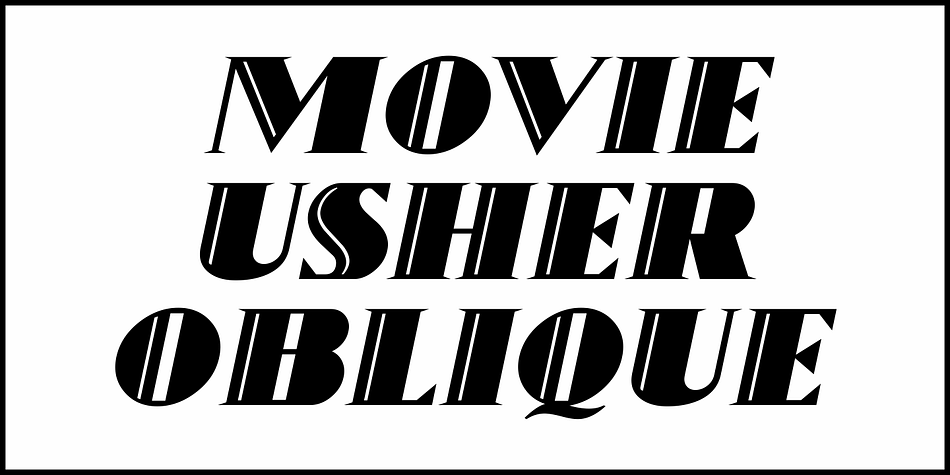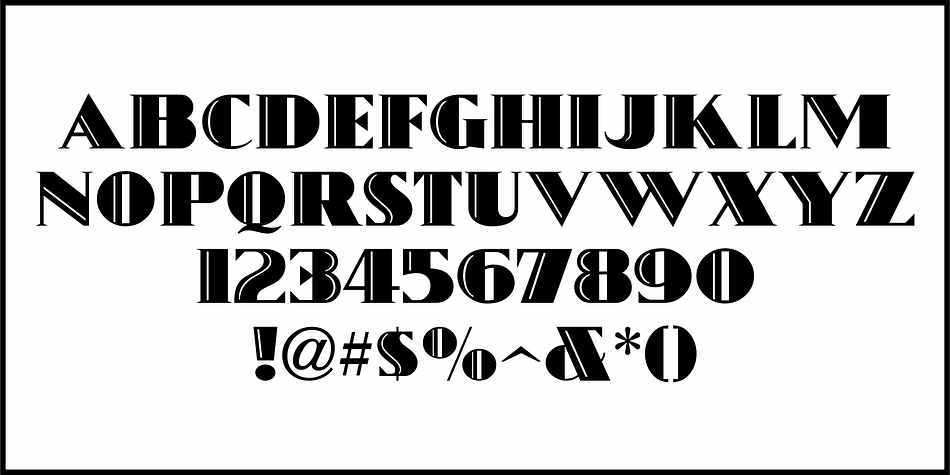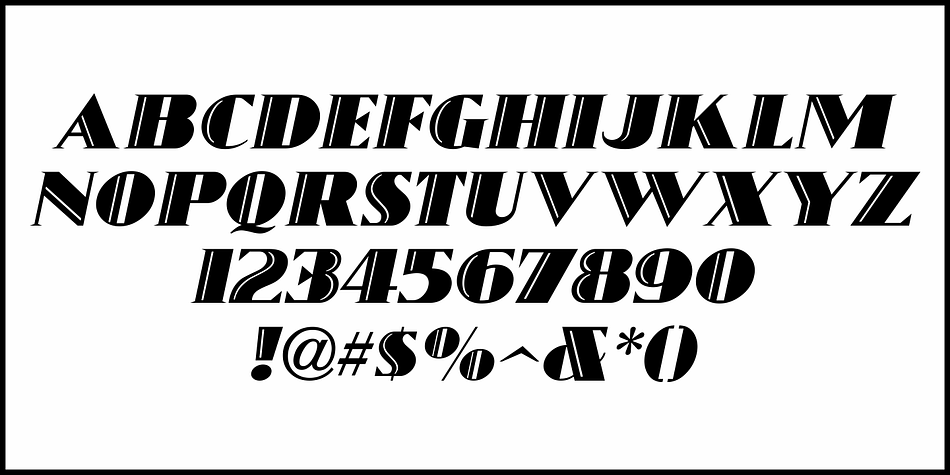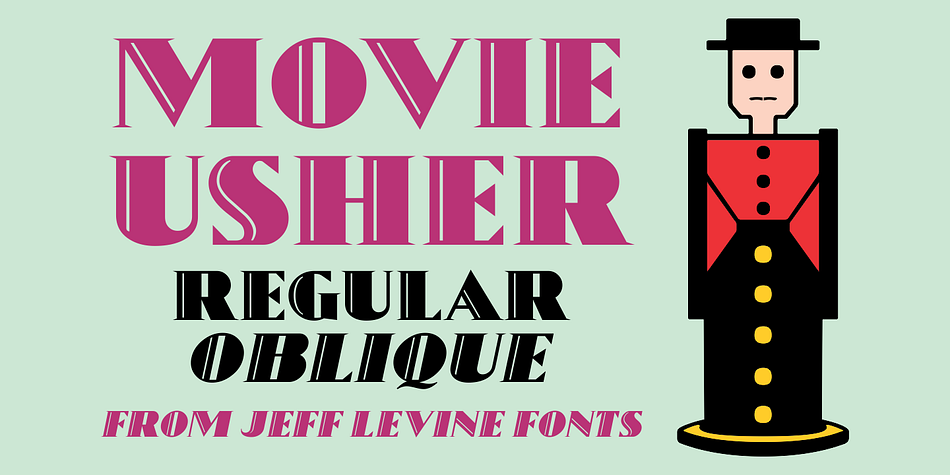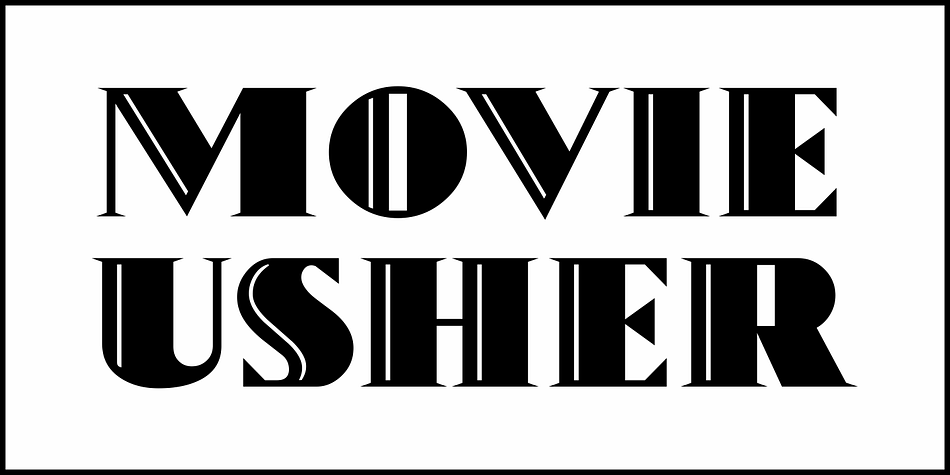
MOVIE USHER JNL
Designed by Jeff Levine, Movie Usher JNL is a display serif font family. This typeface has two styles and was published by Jeff Levine Fonts.
An ad in the July 27, 1928 issue of The Film Daily for FBO Pictures was an encouragement to all theaters to accept the emergence of ‘talking pictures’ and “Don’t be Panicked by Sound”.  The headline text was hand lettered in an extra bold serif type face with engraved [incised] lines.
The lettering has been redrawn as the digital type face Movie Usher JNL, and is available in both regular and oblique versions.